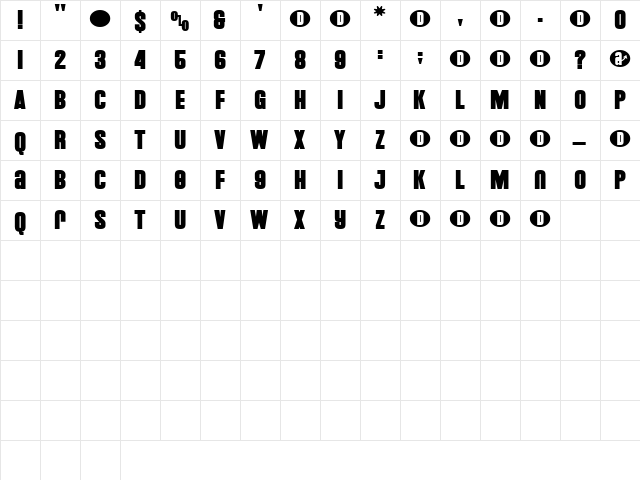
Grandpaboy Regular
Design Context for Grandpaboy Typeface
Grandpaboy takes a measured approach to typography — its balanced proportions and neutral character make it a reliable workhorse for both digital and print work.
Pro Tip: Use Grandpaboy in both headline and body roles to test its range before committing to a single application.